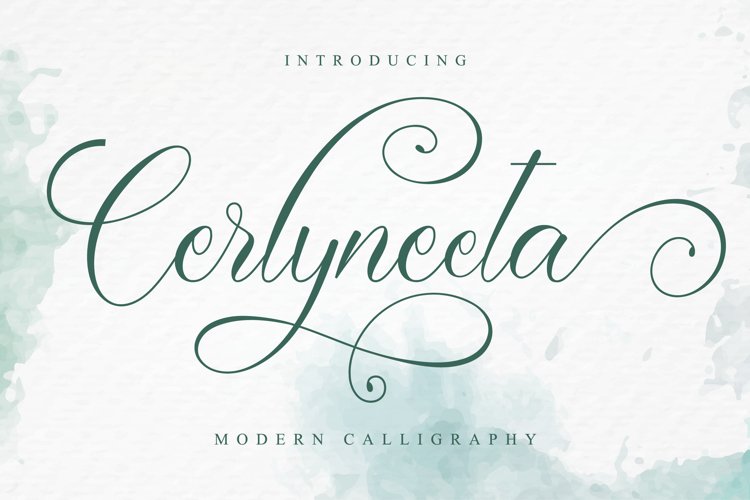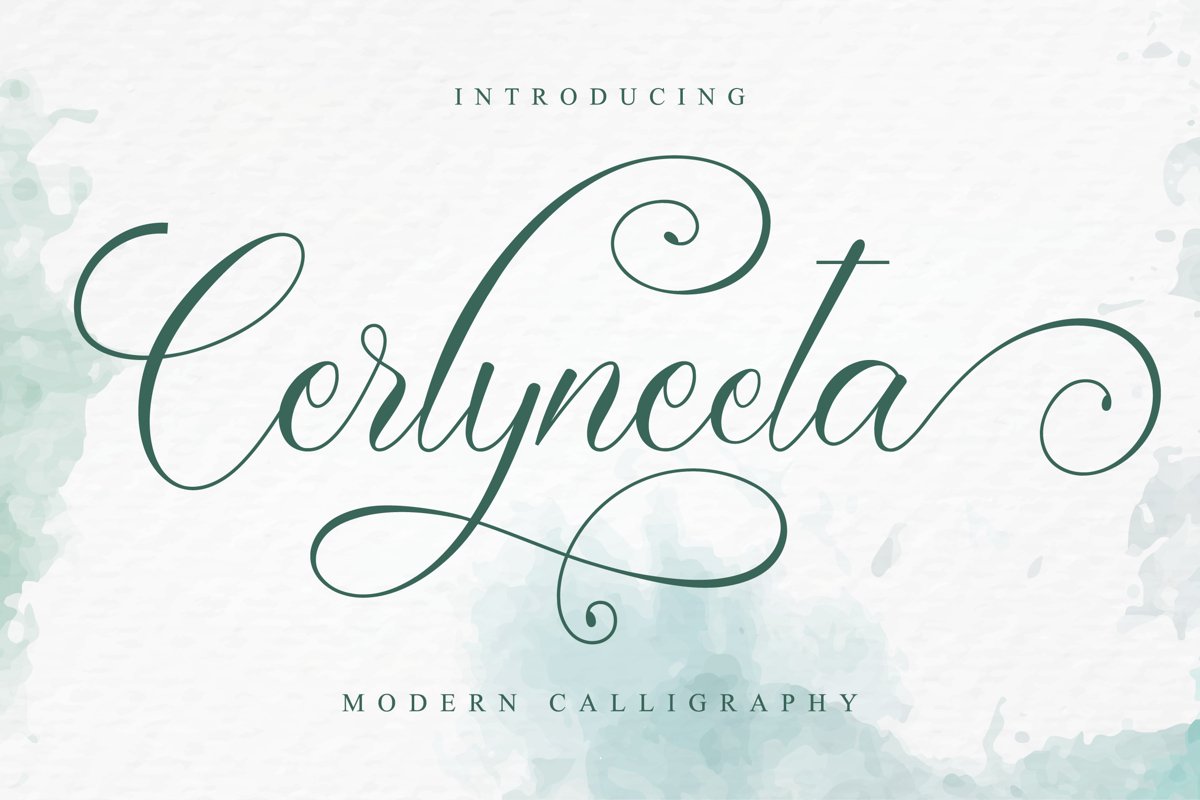
Cerlyneeta feels equally charming and elegant. This font is PUA encoded which means you can access all of the glyphs and swashes with ease! It features a varying baseline, smooth lines, gorgeous glyphs and stunning alternates.
Fall in love with Cerlyneeta’s incredibly versatile style and use it to create gorgeous wedding invitations, beautiful stationary art, eye-catching social media posts, and much more!